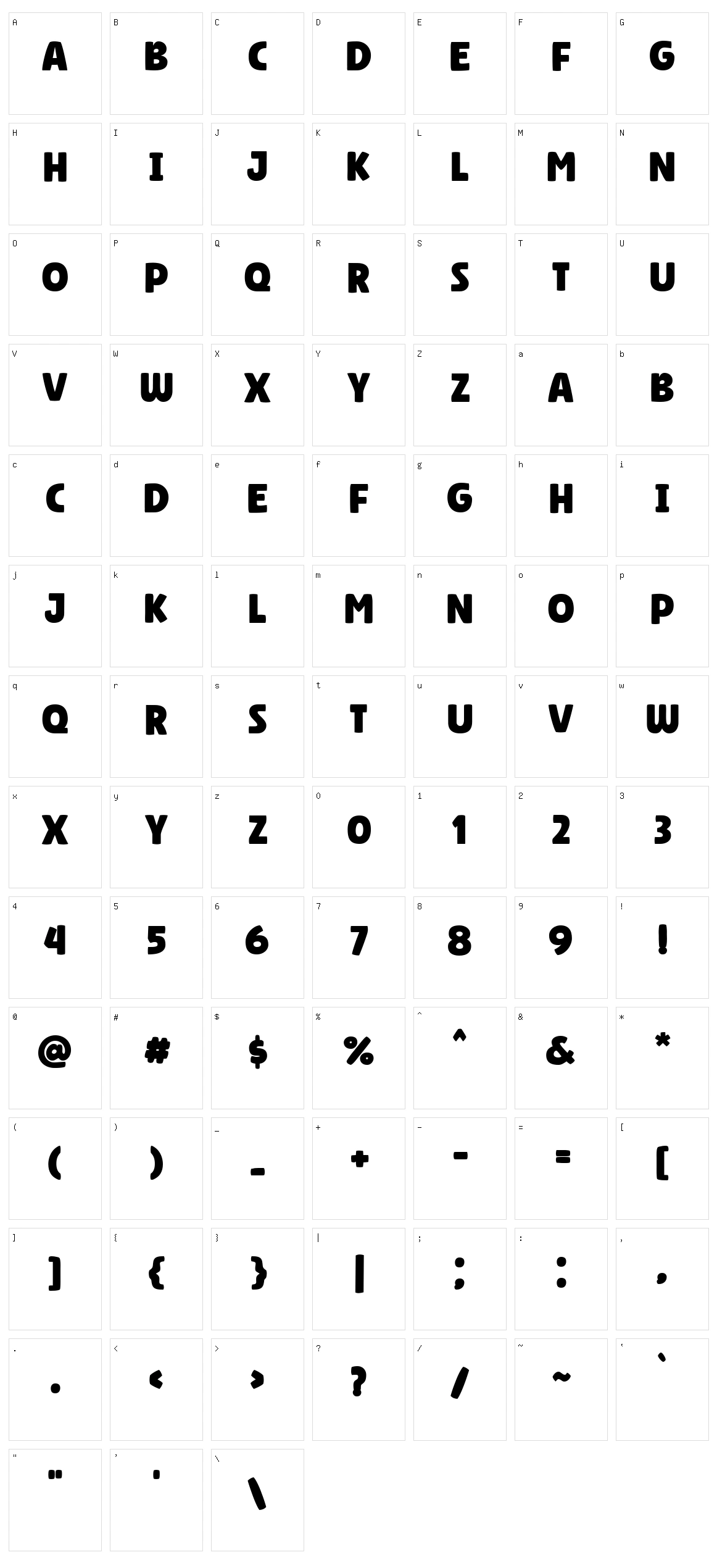
The free font Super Corn is carefully designed by fsuarez913, showcasing a thoughtful balance of creativity and usability and falls under the Cartoon font style. When you download the ZIP file, it contains only 29.97 KB of font files, making it lightweight and quick to download. Please review the license details below to understand permitted usage and distribution rights. If license information is not available, we recommend using this font for personal projects only or contacting the author directly for commercial usage permissions.